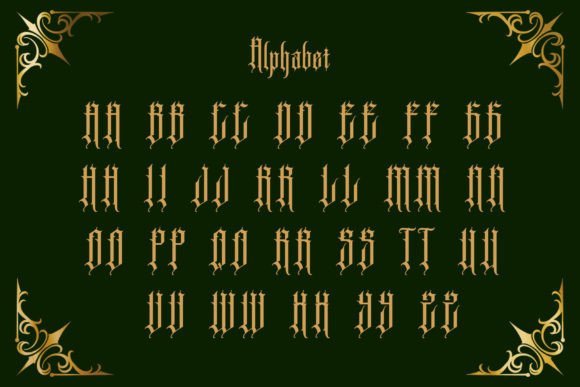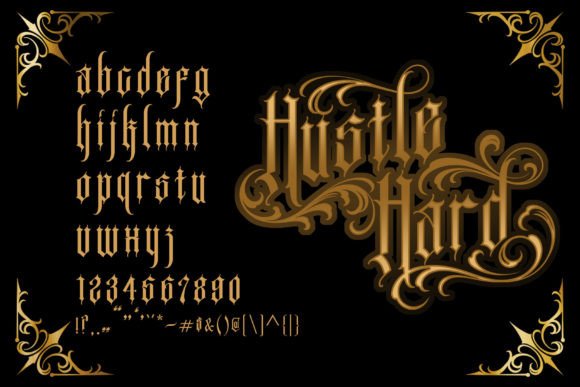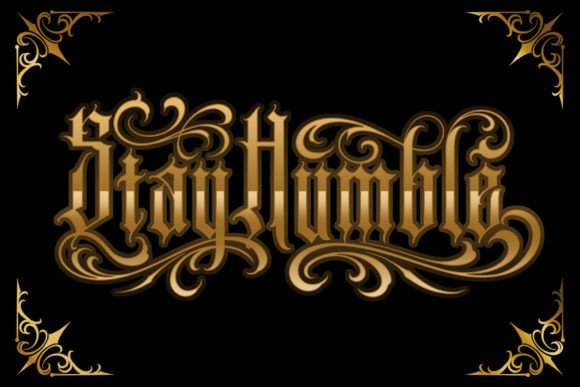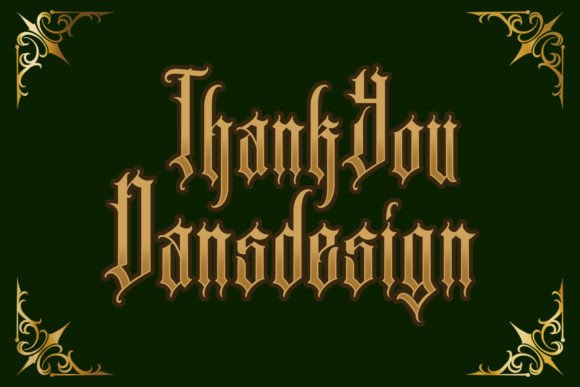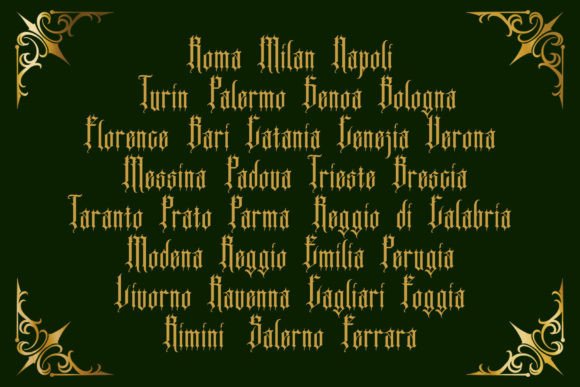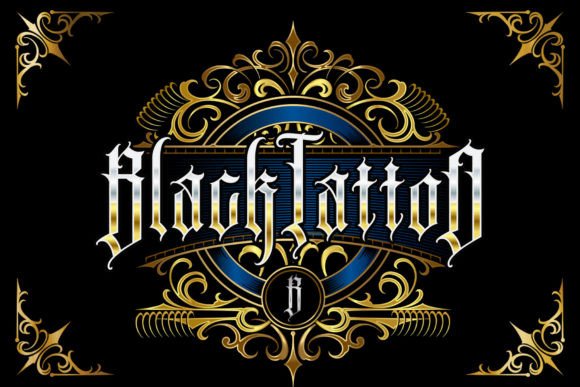
Introduction to Sanister Font Font
Fonts play a crucial role in design, and the Sanister Font font is a typeface that brings both character and versatility to any project. Whether you’re working on a branding project, a website, or a print design, the Sanister Font font offers a unique style that can elevate your work.
Sanister is a vintage blackletter font that exudes a sense of Gothic elegance.
Its intricate curves and sharp edges give it a sophisticated yet menacing aura The fontβs tall, angular letterforms are perfect for headlines and logos, especially for brands that want to convey a sense of tradition and history.
Key Features of Sanister Font Font
Why Choose Sanister Font Font?
The Sanister Font font is more than just a typeface β it’s a design tool that helps you communicate your message with style and clarity. Its unique character set and versatile design make it suitable for a wide range of applications, from elegant invitations to bold headlines.
With its carefully crafted letterforms and balanced proportions, the Sanister Font font ensures readability and visual appeal across all mediums.
What makes Sanister Font font special?
The Sanister Font font stands out with its unique design, exceptional readability, and versatility across various design applications.